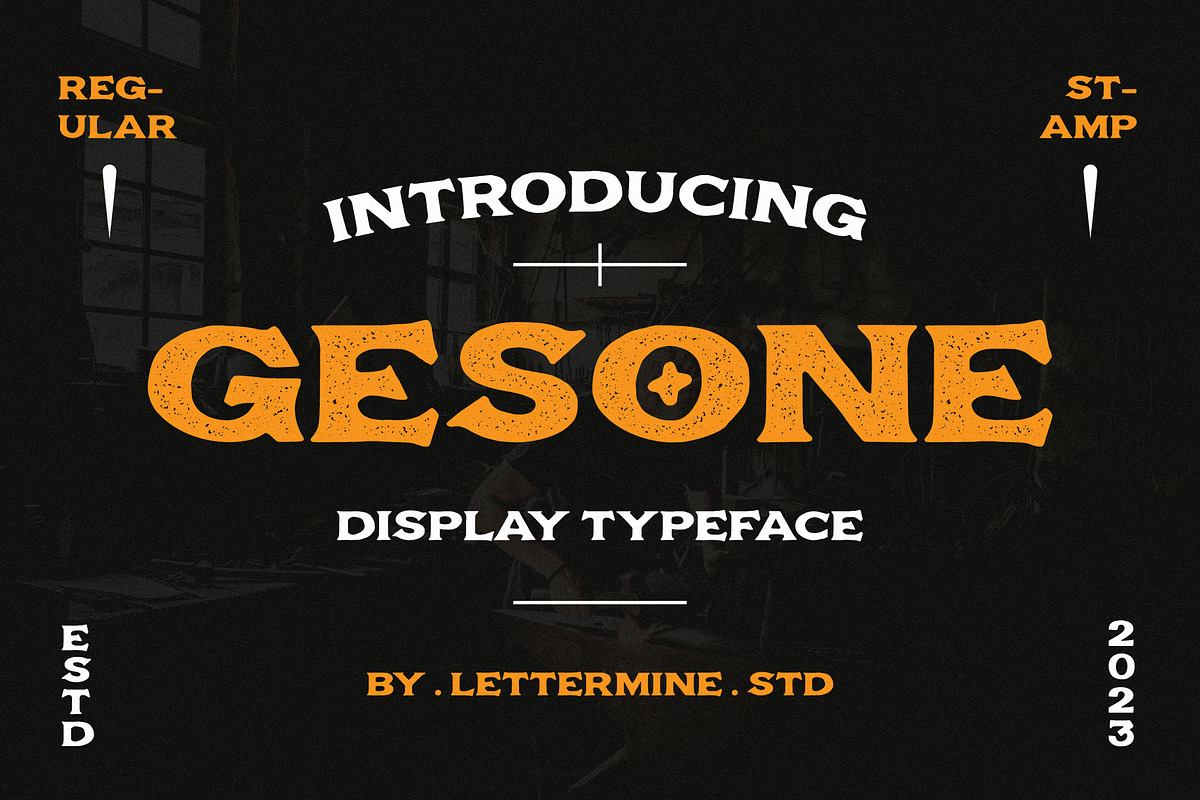
Gesone Font - Vintage Display Free Download is a bold and nostalgic typeface that channels the spirit of retro design with a modern twist. Featuring strong letterforms, vintage curves, and a touch of handcrafted flair, Gesone is perfect for posters, branding, signage, product packaging, and editorial layouts that demand a classic yet striking aesthetic.
Its vintage appeal makes it ideal for projects inspired by old-school advertising, music covers, or retro-themed visuals. The distinctive character shapes ensure that your text stands out while still being easy to read, making it a go-to choice for impactful headlines and logos.